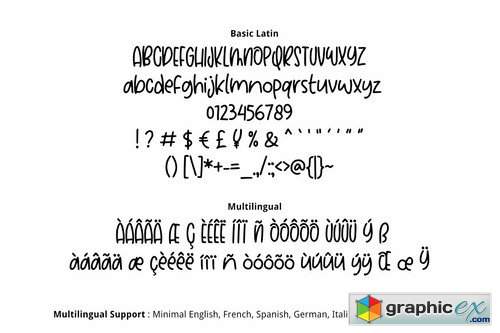
Humpy Font
Humpy Font is simple cute architect multipurpose handmade font, suitable for many project children book, quotes, logo , heading , title etc.